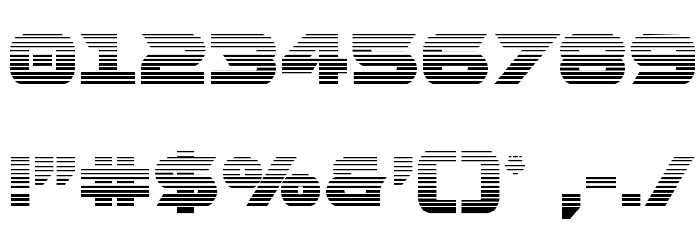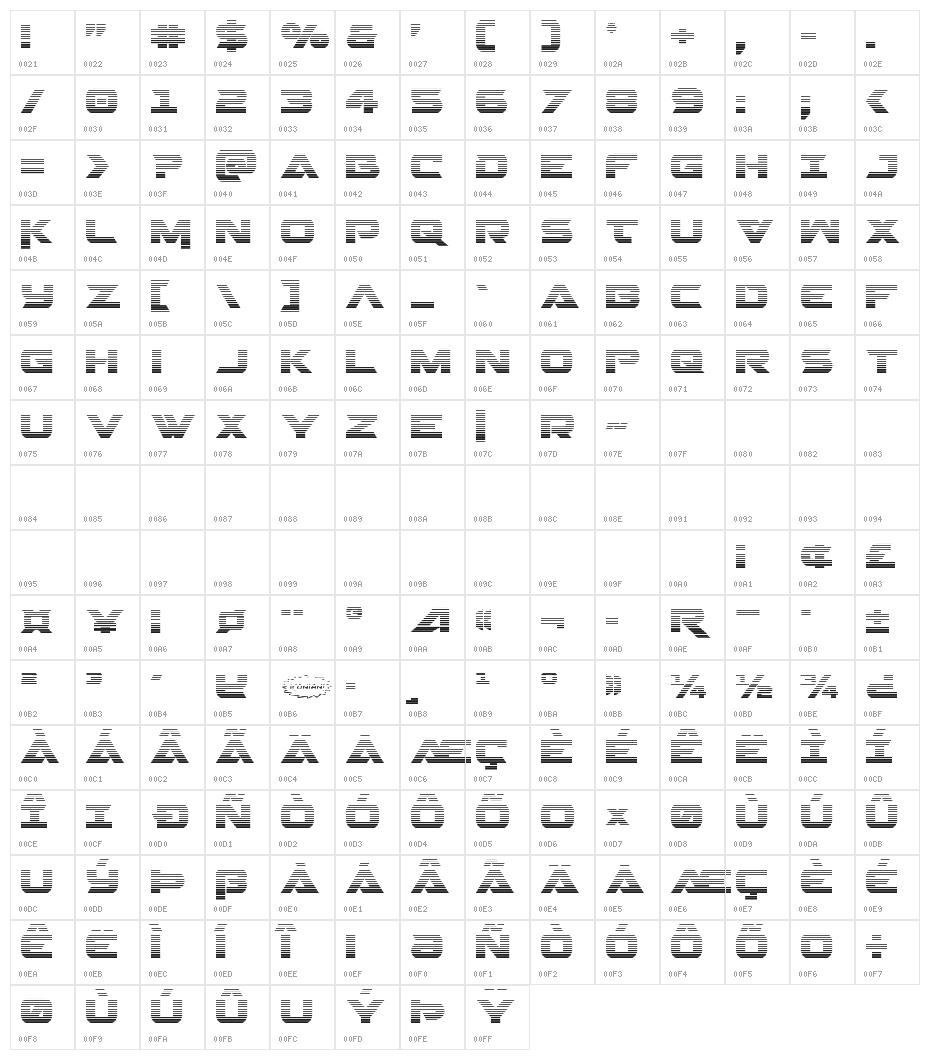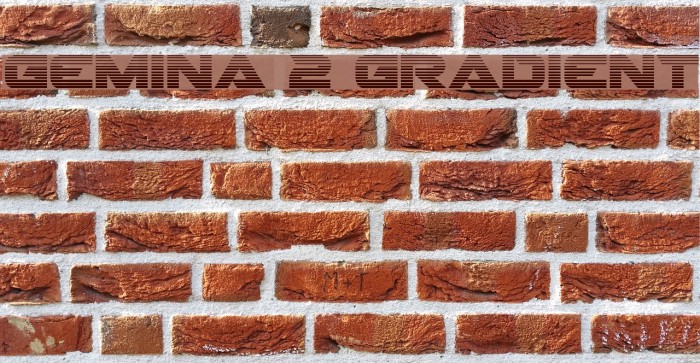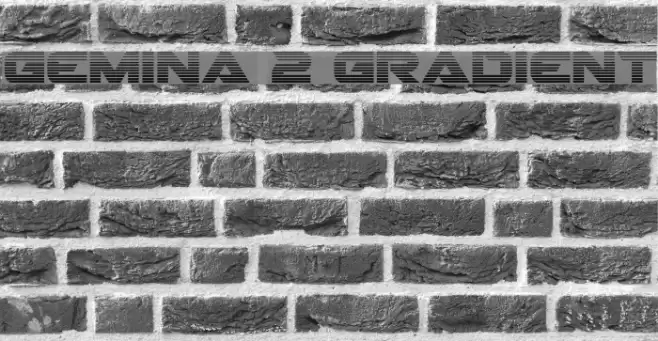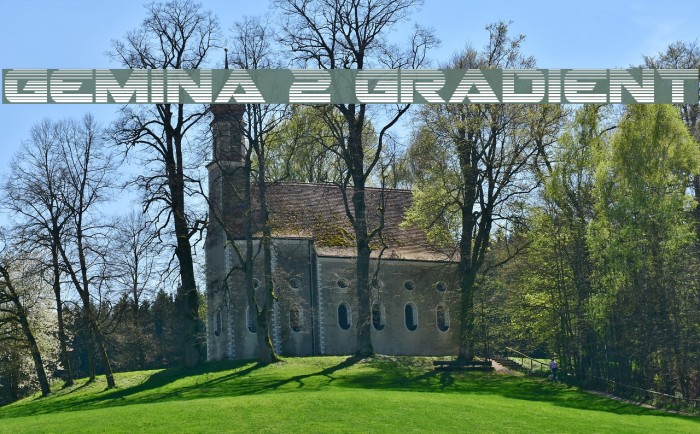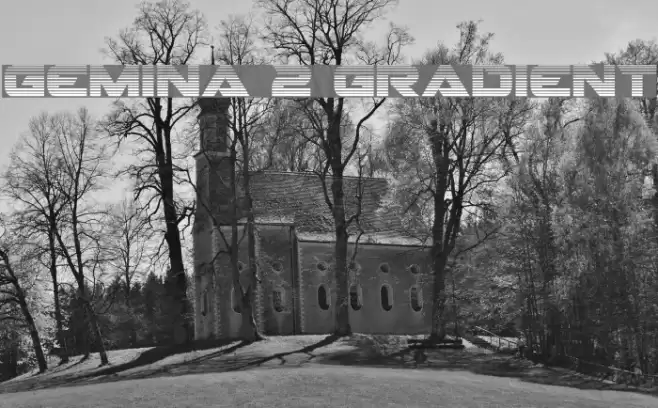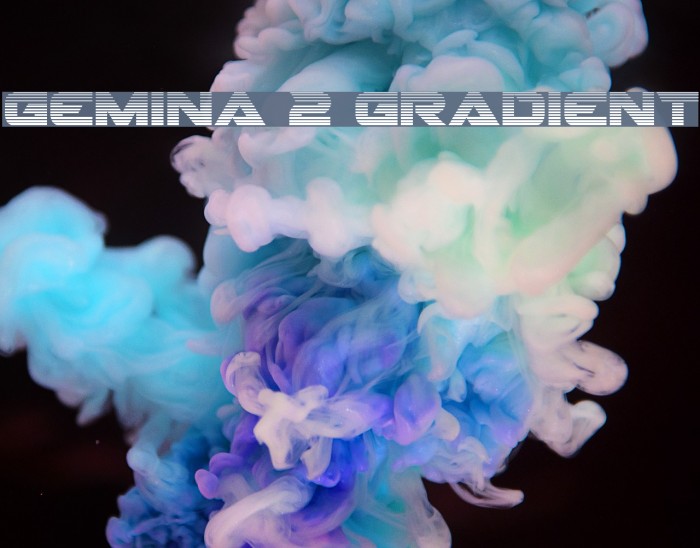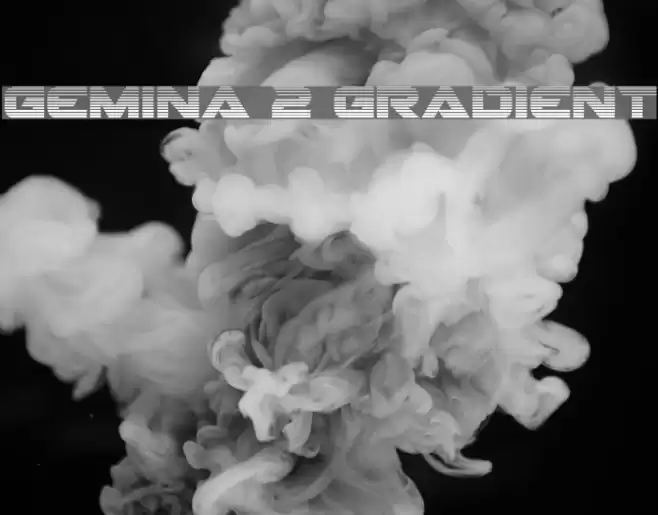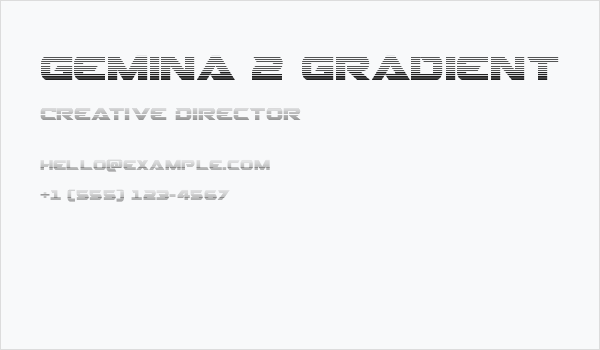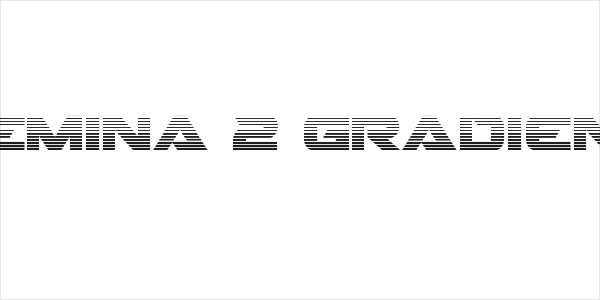
Gemina 2 Gradient Font
Gemina 2 Gradient Description
This font features a unique, futuristic design characterized by horizontal lines that create a gradient effect across each character. The letters are bold and angular, giving a sense of movement and modernity. The uppercase and lowercase letters maintain a consistent style, with the horizontal lines varying in thickness to add depth and dimension. Numbers and special characters follow the same design principles, ensuring a cohesive look across all elements. This font's distinctive style makes it ideal for projects that require a modern, tech-inspired aesthetic.
| Proposed Projects | Ideal for tech branding, sci-fi posters, video game titles, and futuristic-themed designs. |